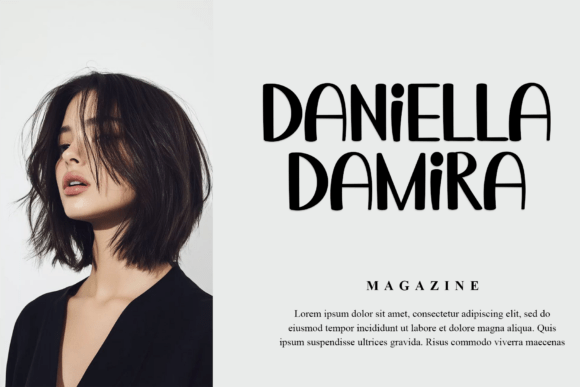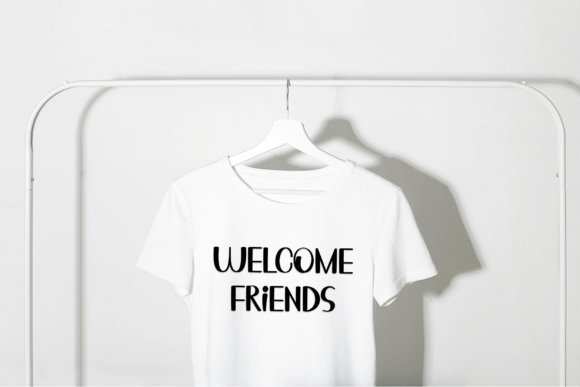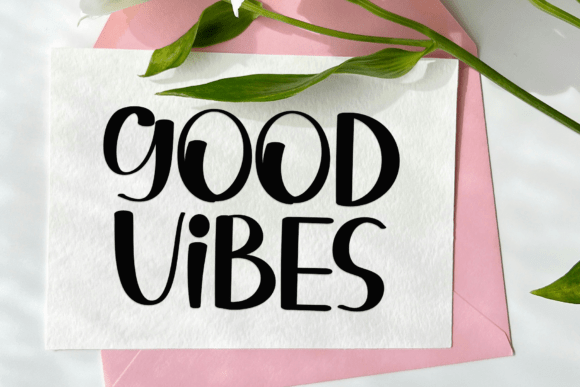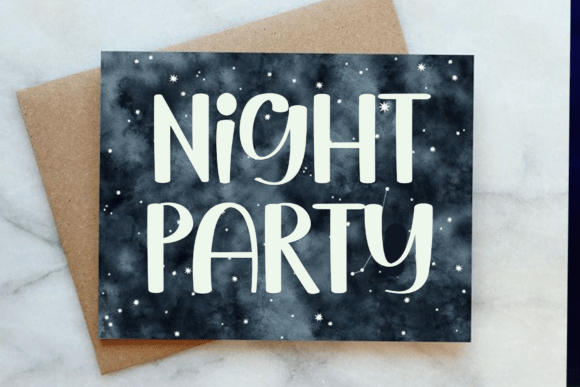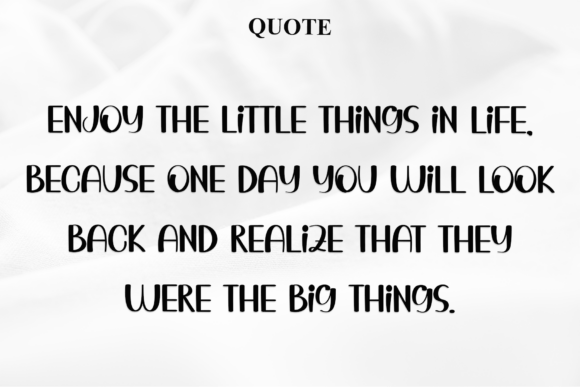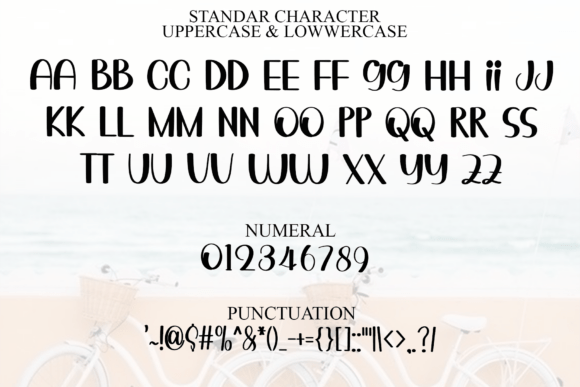
Introduction to Jungle George Font
Jungle George is a casual and creative font that exudes warmth and friendliness.
Key Features of Jungle George Font
Why Choose Jungle George Font?
Jungle George Font offers exceptional quality and versatility, making it a valuable addition to your design toolkit. Whether you’re creating for personal projects or commercial use, Jungle George Font delivers professional results.